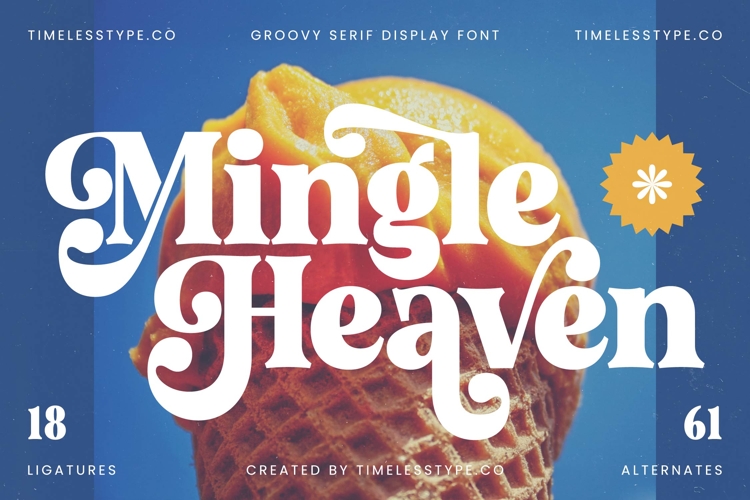
Mingle Heaven - Groovy Serif Display Font
Unleash a wave of nostalgic charm with Font Mingle Heaven - Groovy Serif Display Font Serif Display, a typeface that masterfully blends vintage appeal with contemporary flair. Its bold, inviting serifs and elegant, flowing curves create an immediate sense of warmth and sophistication, ensuring your designs truly stand out. This display font is meticulously crafted to command attention, offering a captivating aesthetic perfect for making a memorable first impression.
Elevate your creative projects with the unparalleled versatility of Font Mingle Heaven - Groovy Serif Display Font Serif Display. It is perfectly suited for luxury branding, boutique packaging, distinctive editorial layouts, and charming wedding invitations. Imagine its impact on logo design, magazine headlines, or eye-catching posters, where its unique character can transform ordinary text into an extraordinary visual statement.
Expand your global reach effortlessly. With its extensive multilingual support, Font Mingle Heaven - Groovy Serif Display Font Serif Display adapts seamlessly across global markets, making it incredibly versatile for international projects. Further enhancing its design flexibility, this font comes equipped with a rich array of 18 ligatures and 61 alternates, empowering designers with endless possibilities for customization and typographic exploration.
Invest in a typeface that delivers both impact and elegance. Font Mingle Heaven - Groovy Serif Display Font Serif Display is more than just a font; it’s a design solution engineered to inject personality and professionalism into every application. Choose this font to achieve unforgettable brand identity and communicate your message with unmistakable style and refined artistry.